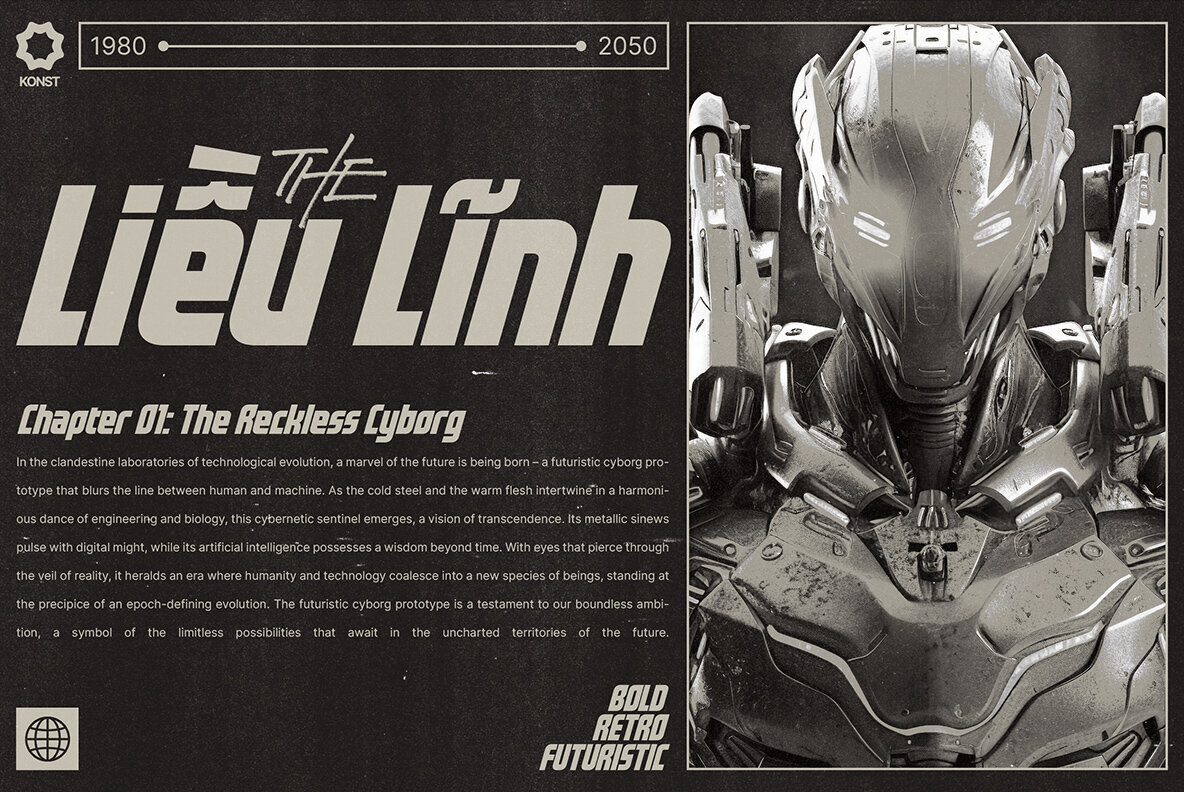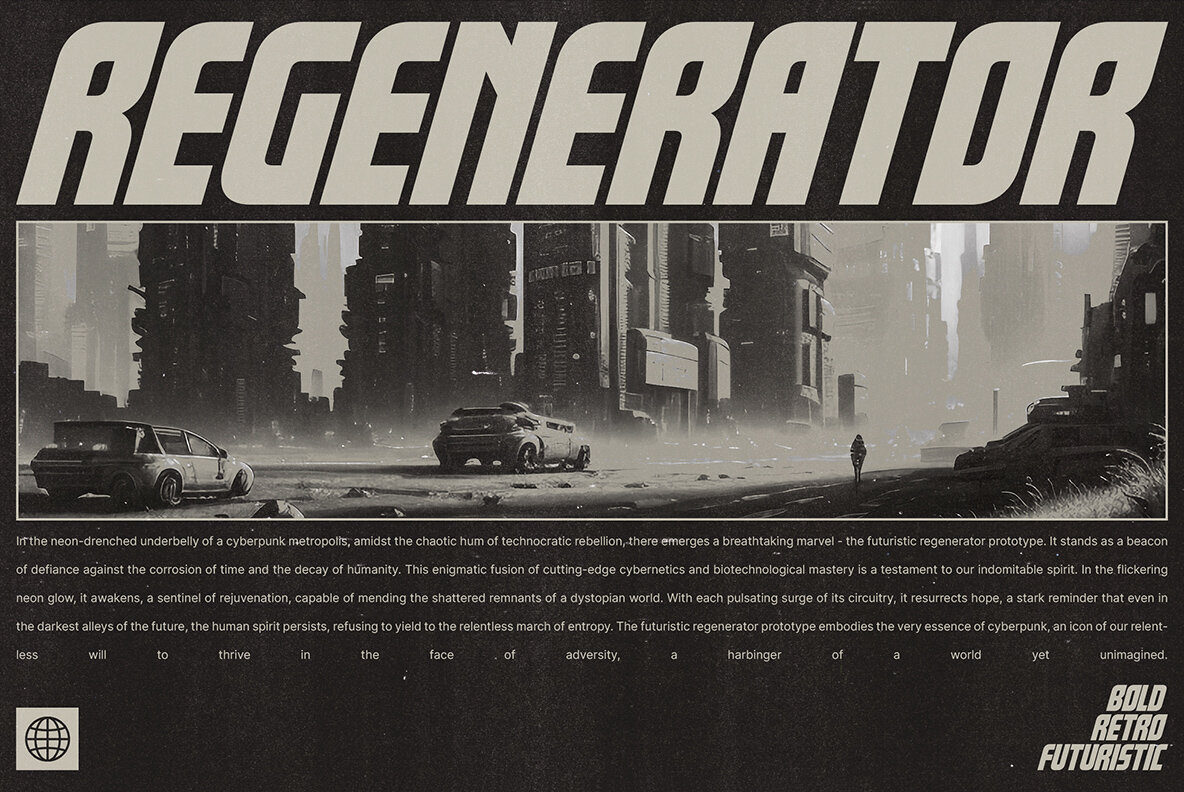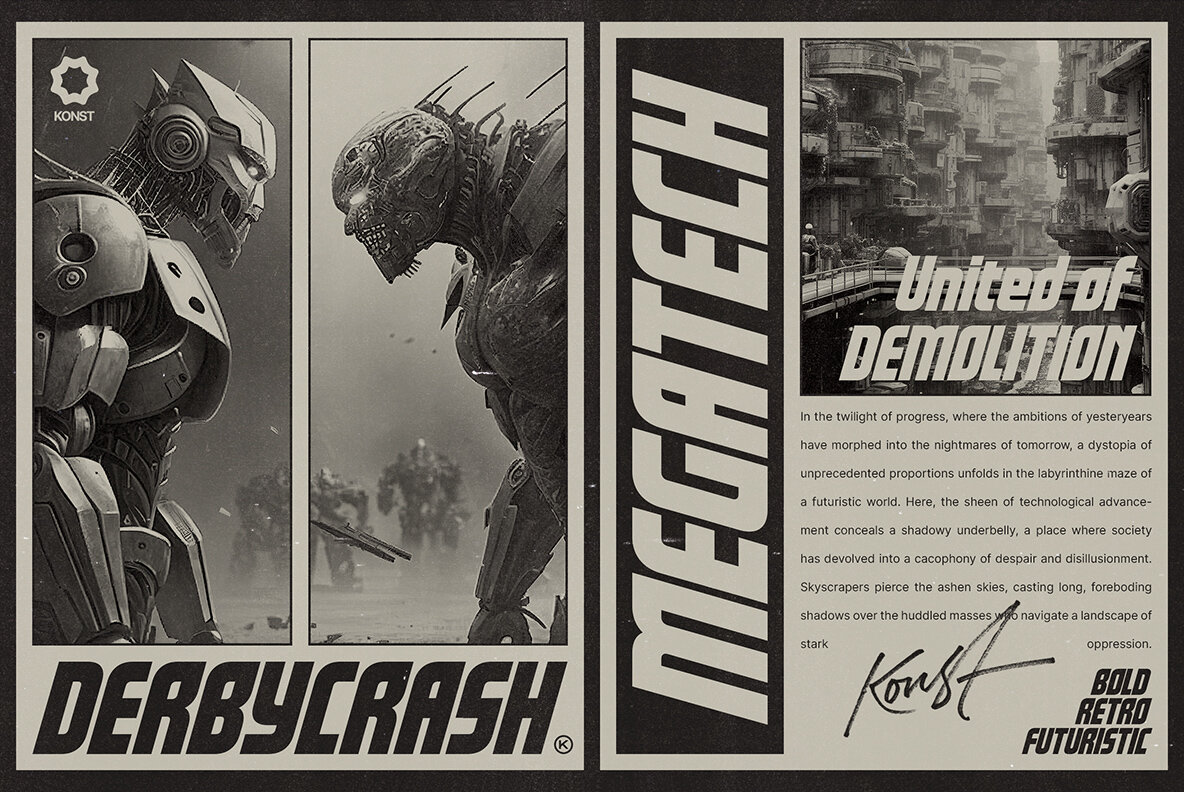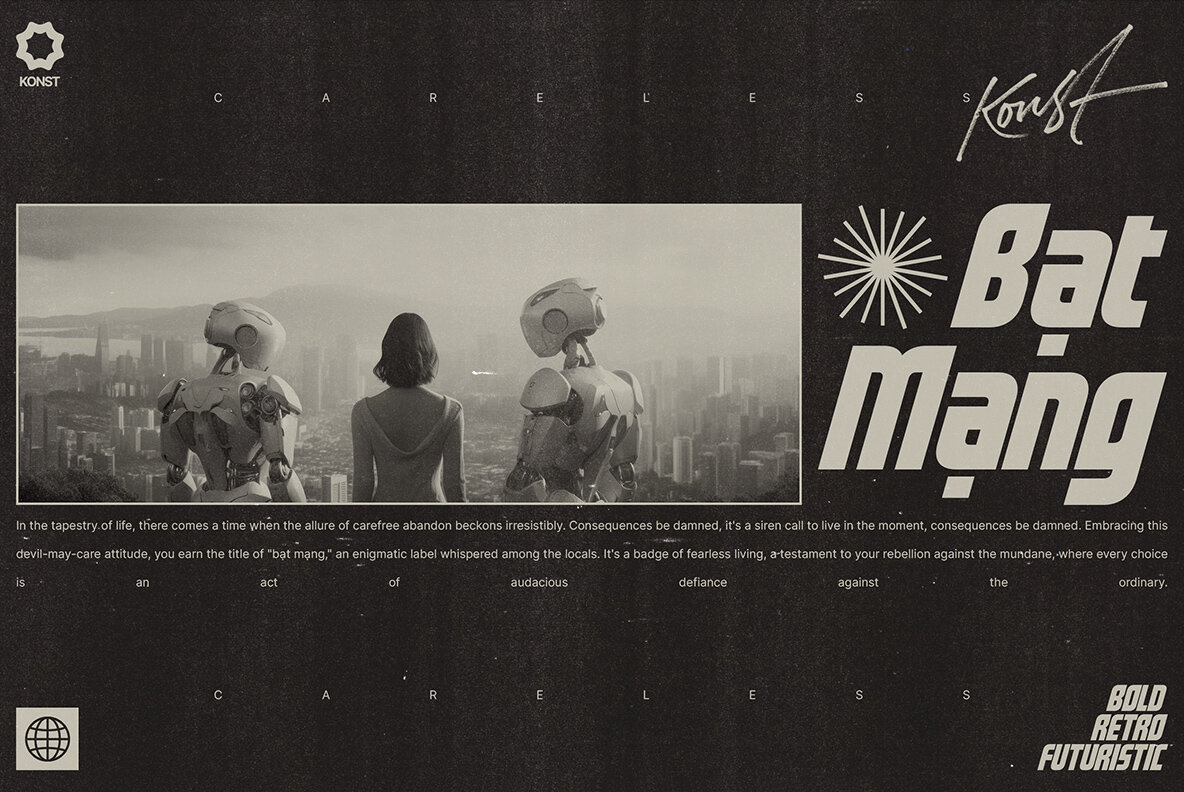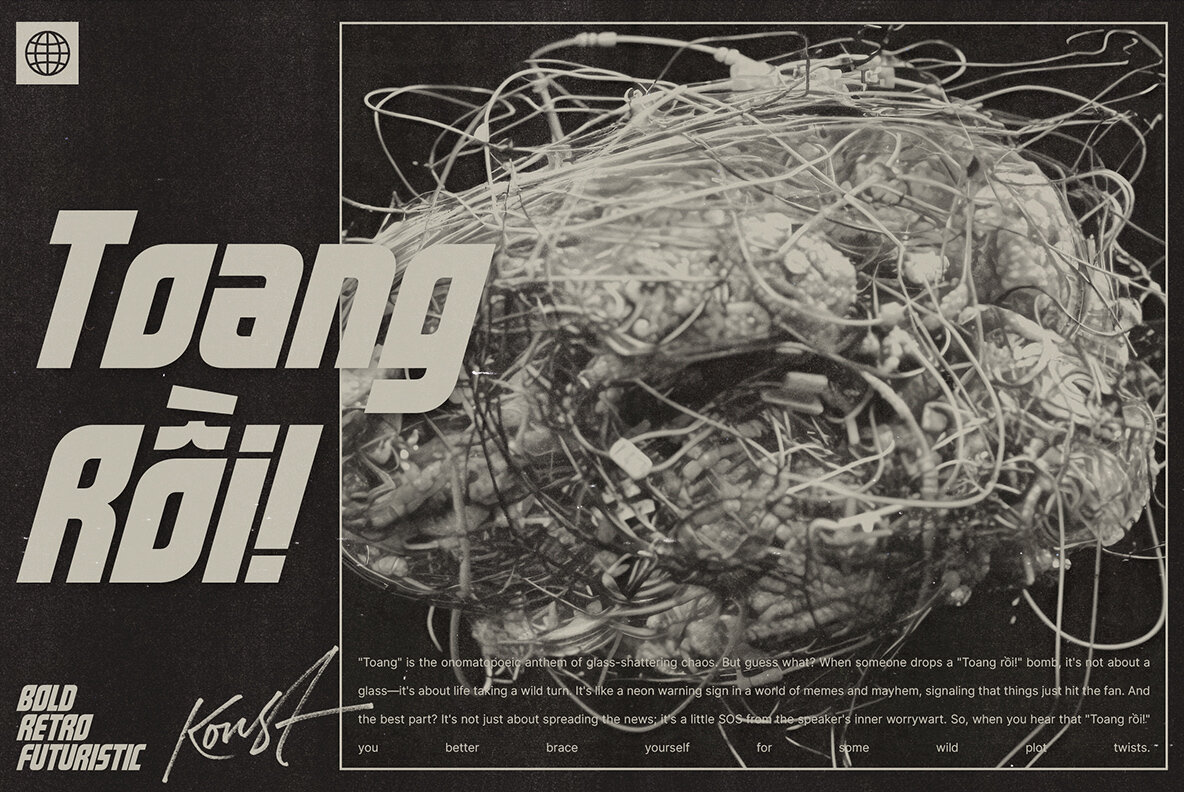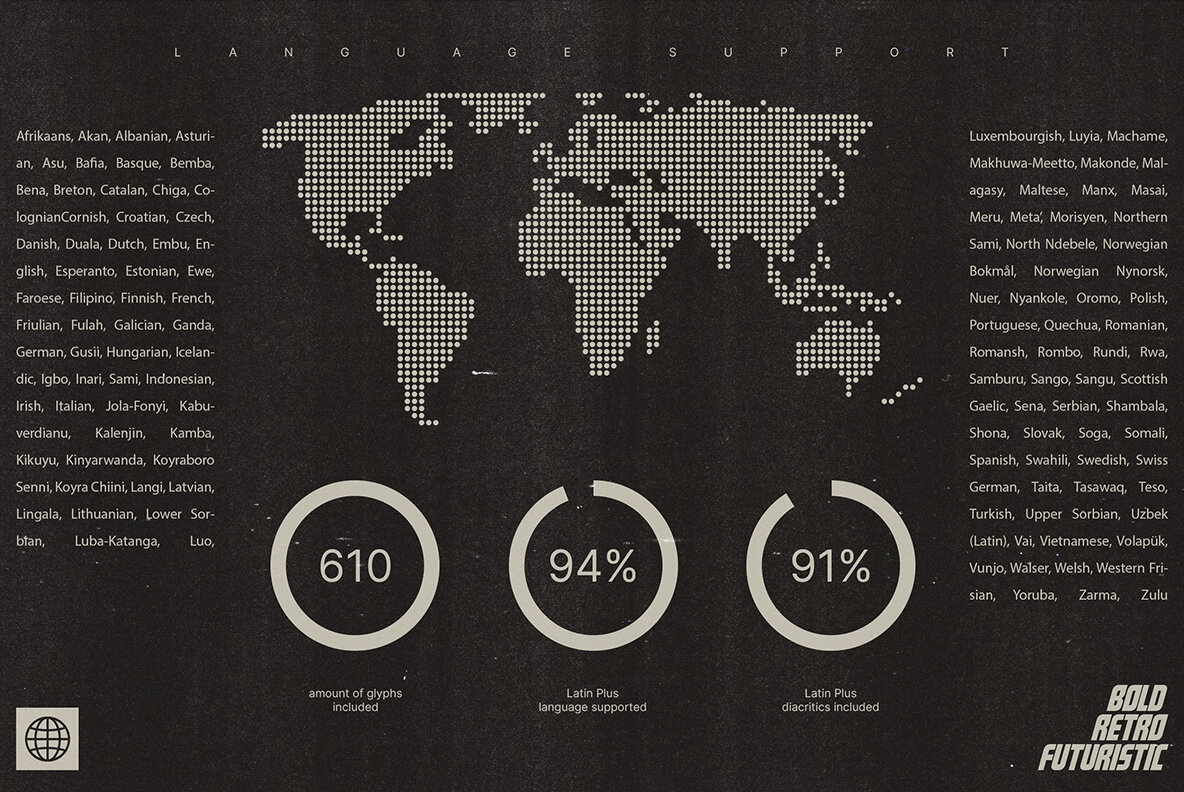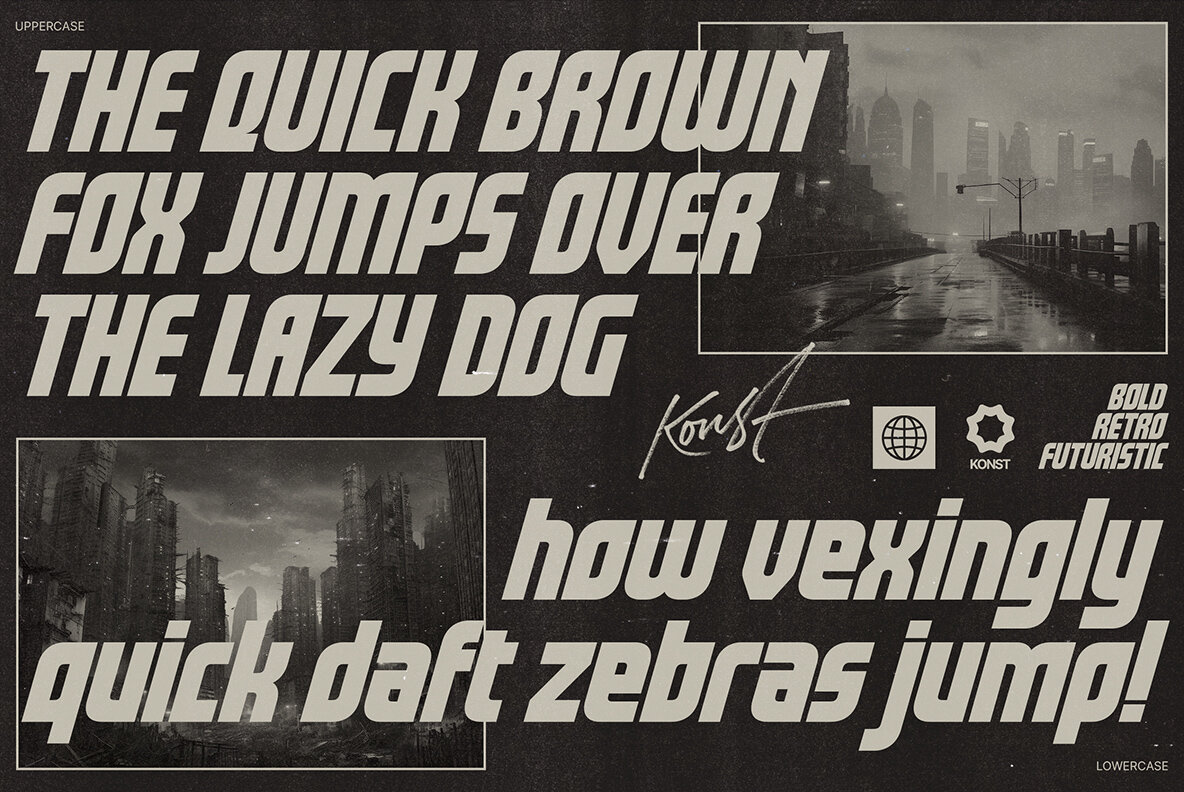
Midkaiser Font
Midkaiser Regular
Discover the allure of Midkaiser, where innovation meets design mastery to create an experience that transcends the ordinary. This typeface captivates with its forward-thinking approach to typography. Midkaiser is more than just a font; it reflects visionary design. Elevate your creative projects with its futuristic allure, already celebrated across the design sphere. Crafted with precision, Midkaiser seamlessly blends boldness with sophistication, empowering your brand to make a distinctive mark and leaving a lasting impression on your audience. Ignite your creativity and transform your designs with Midkaiser—your gateway to futuristic tech fonts that leave an unforgettable impact.Midkaiser: Visionary Design Meets Futuristic Typography
Design Philosophy
Features and Impact